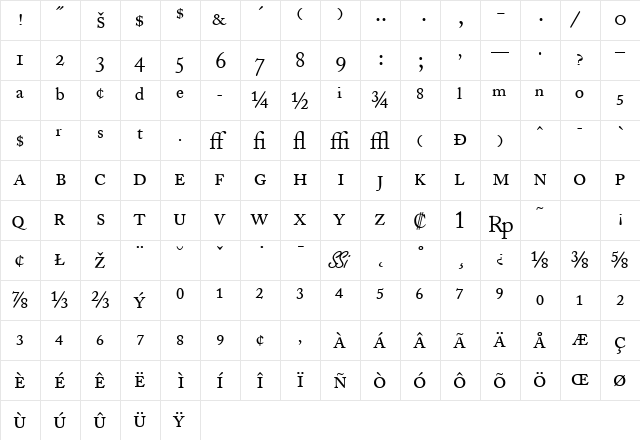
CaslonProSSK Regular
Design Context for CaslonProSSK Typeface
CaslonProSSK takes a measured approach to typography — its balanced proportions and neutral character make it a reliable workhorse for both digital and print work.